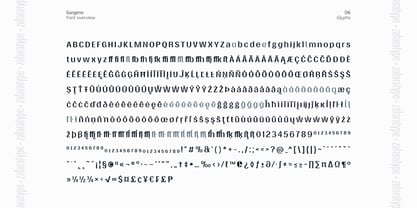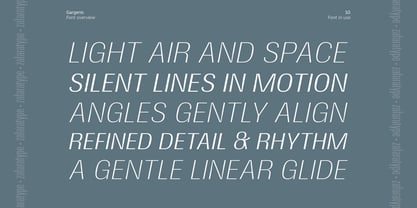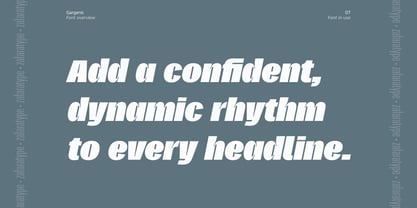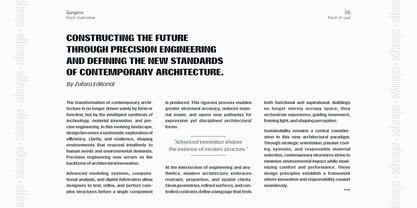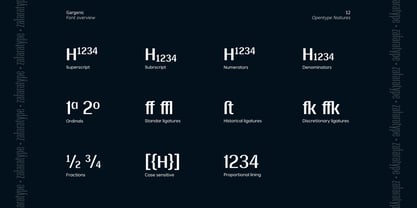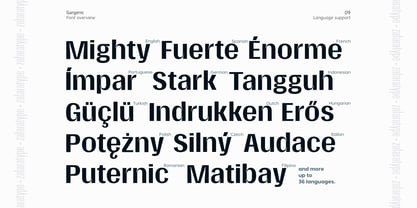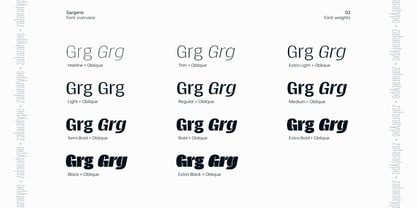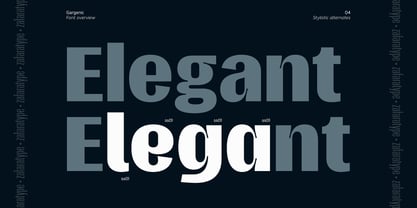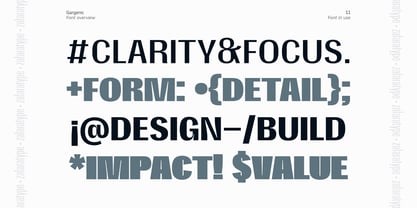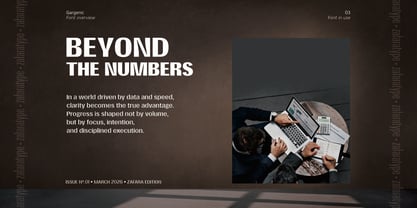
Gargenic
The Gargenic Font Family was designed by Zohan Nur Muchlis and published by Zafara Studios. Gargenic contains 22 styles and family package options. More about this family
Gargenic is a bold and contemporary sans serif font family that blends strong geometric construction with refined proportions and distinctive inktrap detailing. Characterized by its sharp corners, compact forms, and precision-cut terminals, Gargenic delivers high visual impact with excellent clarity, making it ideal for designs that demand strength, modernity, and a confident tone. With balanced proportions and engineered precision, Gargenic bridges functional typography and expressive display aesthetics. Whether used for striking headlines or bold branding systems, it brings authority, energy, and a clean contemporary presence to any project. Key Features: - 22 styles: 11 uprights and 11 matching obliques - 529 glyphs with extended Latin support - Includes uppercase and lowercase, numerals, punctuation, currency and math symbols, accented characters, and additional Latin glyphs - Distinctive inktrap details for enhanced clarity and technical character - Carefully designed oblique styles with dynamic rhythm and optical balance - Optimized for headlines, branding, editorial layouts, and modern visual identities Gargenic is an excellent choice for branding, advertising, editorial design, posters, packaging, and digital visuals. More than just a typeface, Gargenic is a powerful design tool built to deliver impact, precision, and a strong contemporary voice.